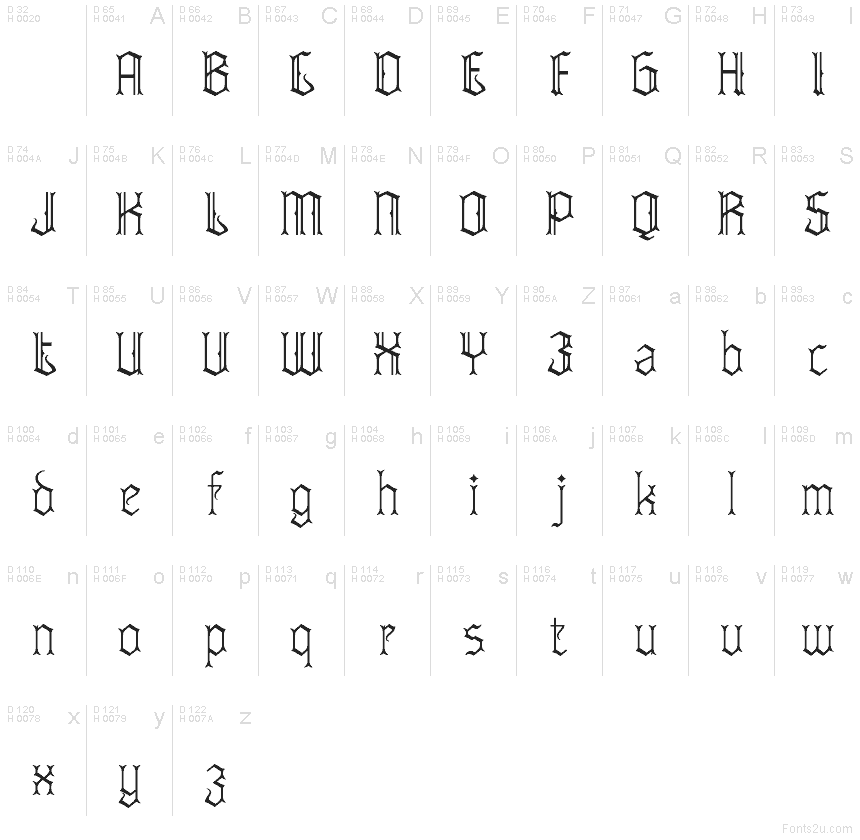
CS Belphegor Regular Demo
CS Belphegor font by Craft Supply Co. is a gothic medieval-style typeface with a condensed width and light weight. The font bears historical references to medieval scripts with its ornate decorative elements and dramatic piece overall. This free gothic font delivers an elegant appeal in various design styles, especially grunge, traditional, vintage, and classic.
Using this typeface, the style of murals, gravestones, pubs or brewery signs comes out fluidly and naturally as possible. Classic comics can present their titles/headers using the font as well as music bands related to metal or punk genres for their logos/iconography when needed.